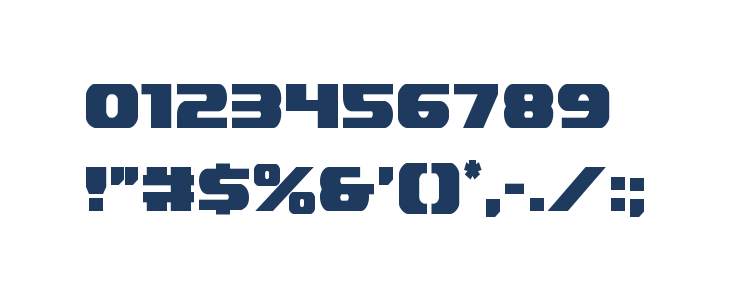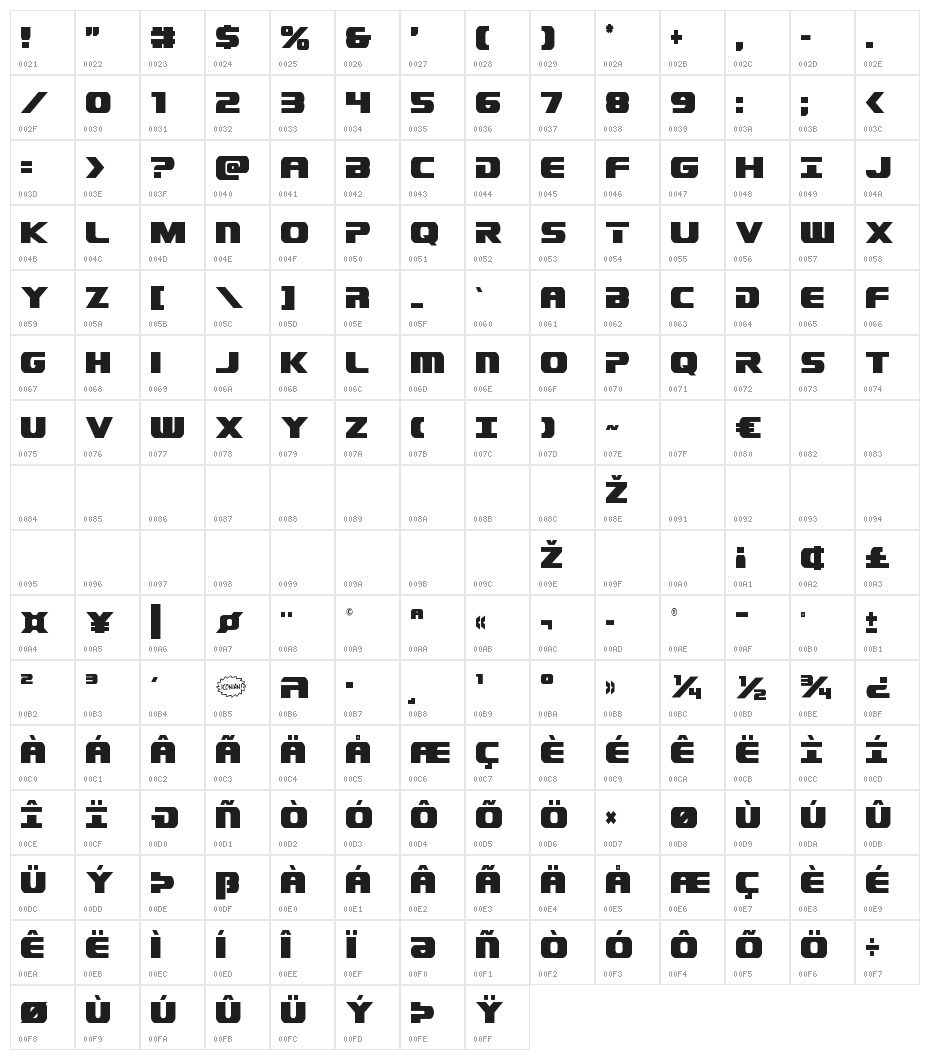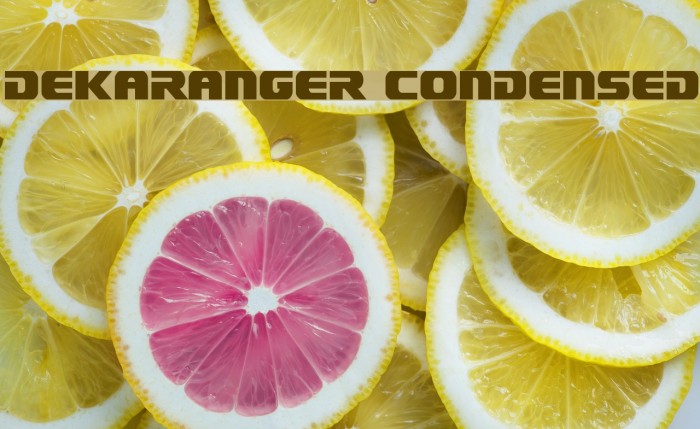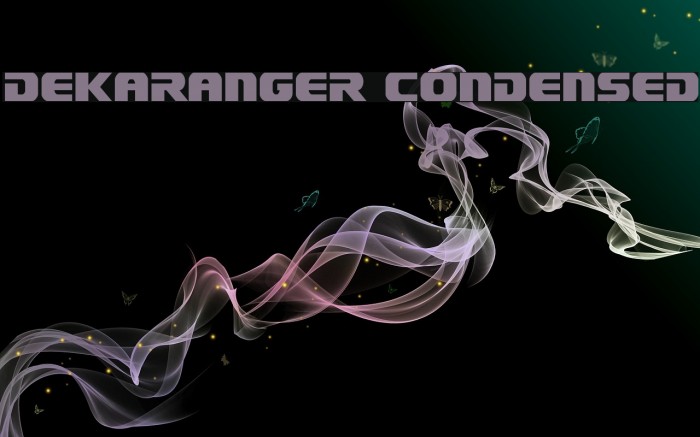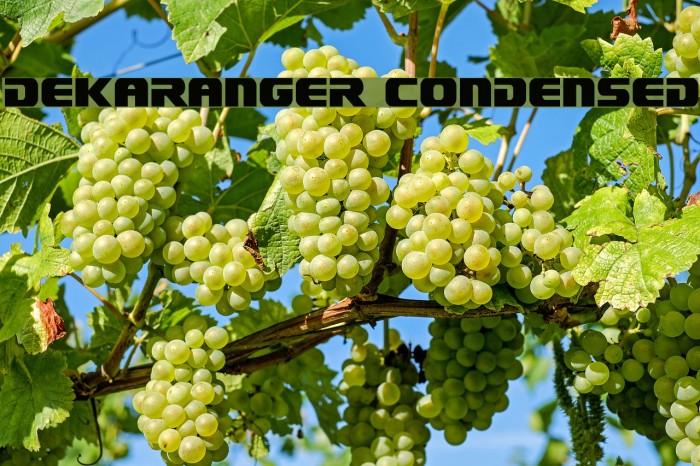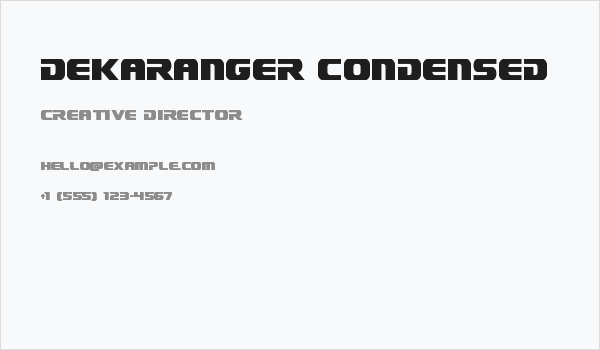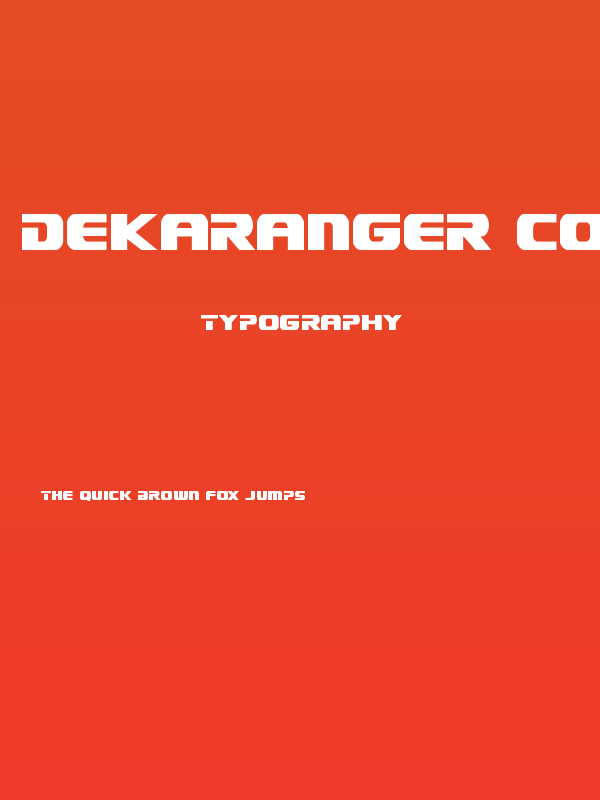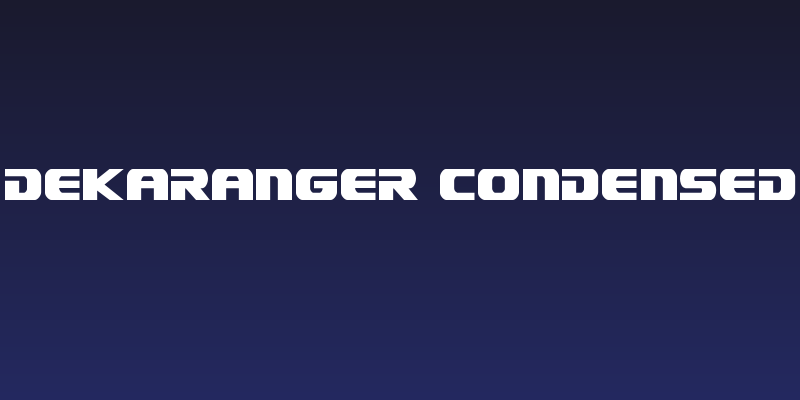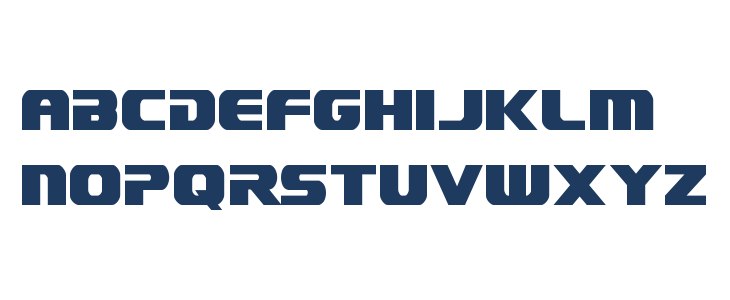
Dekaranger Condensed Font
Dekaranger Condensed Description
This font features a bold and futuristic design with a strong geometric influence. The characters are condensed, giving them a compact and powerful appearance. The uppercase letters are particularly striking, with sharp angles and a consistent stroke width that conveys a sense of strength and modernity. The numbers and special characters maintain this bold aesthetic, ensuring a cohesive look across all glyphs. The font's style is ideal for projects that require a dynamic and impactful visual presence.